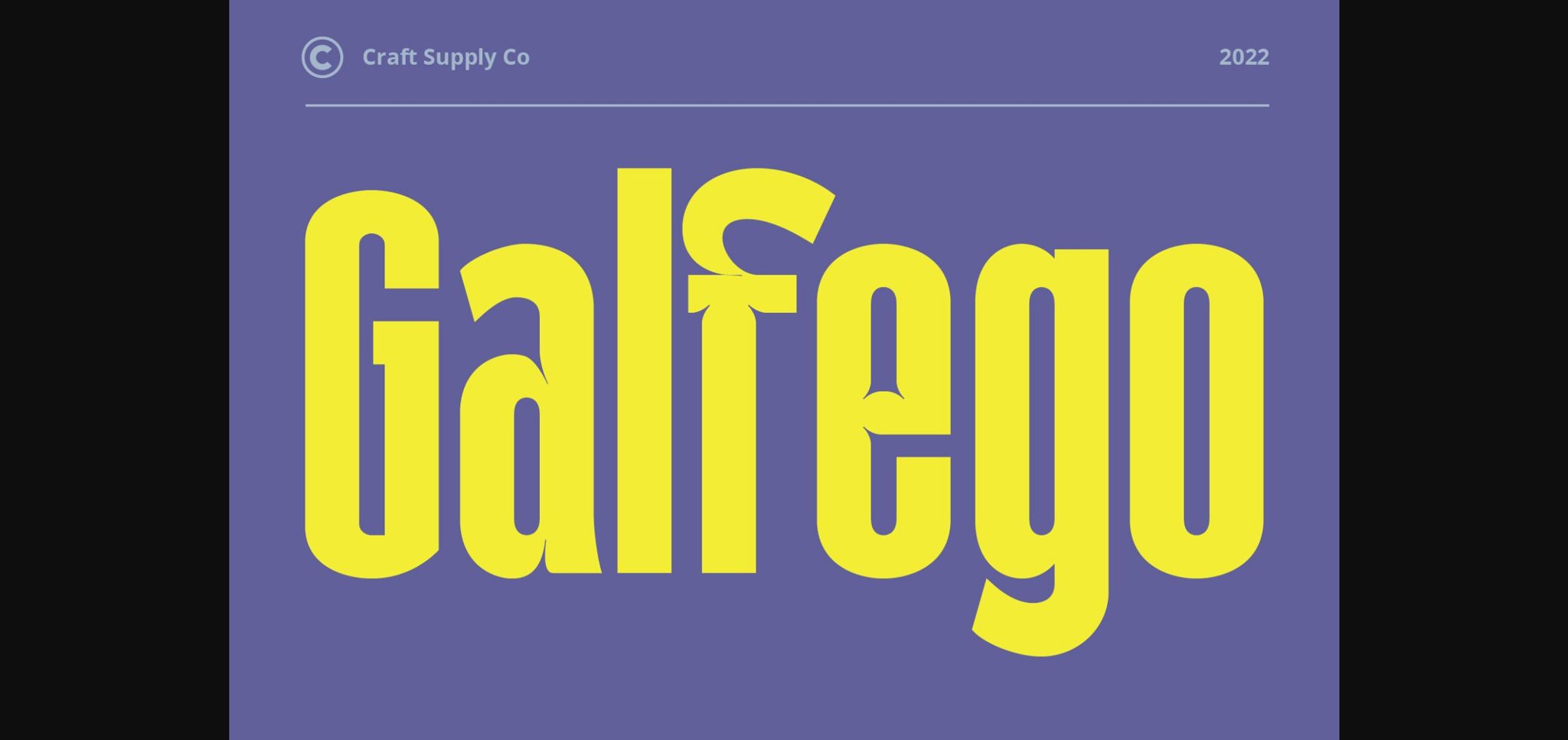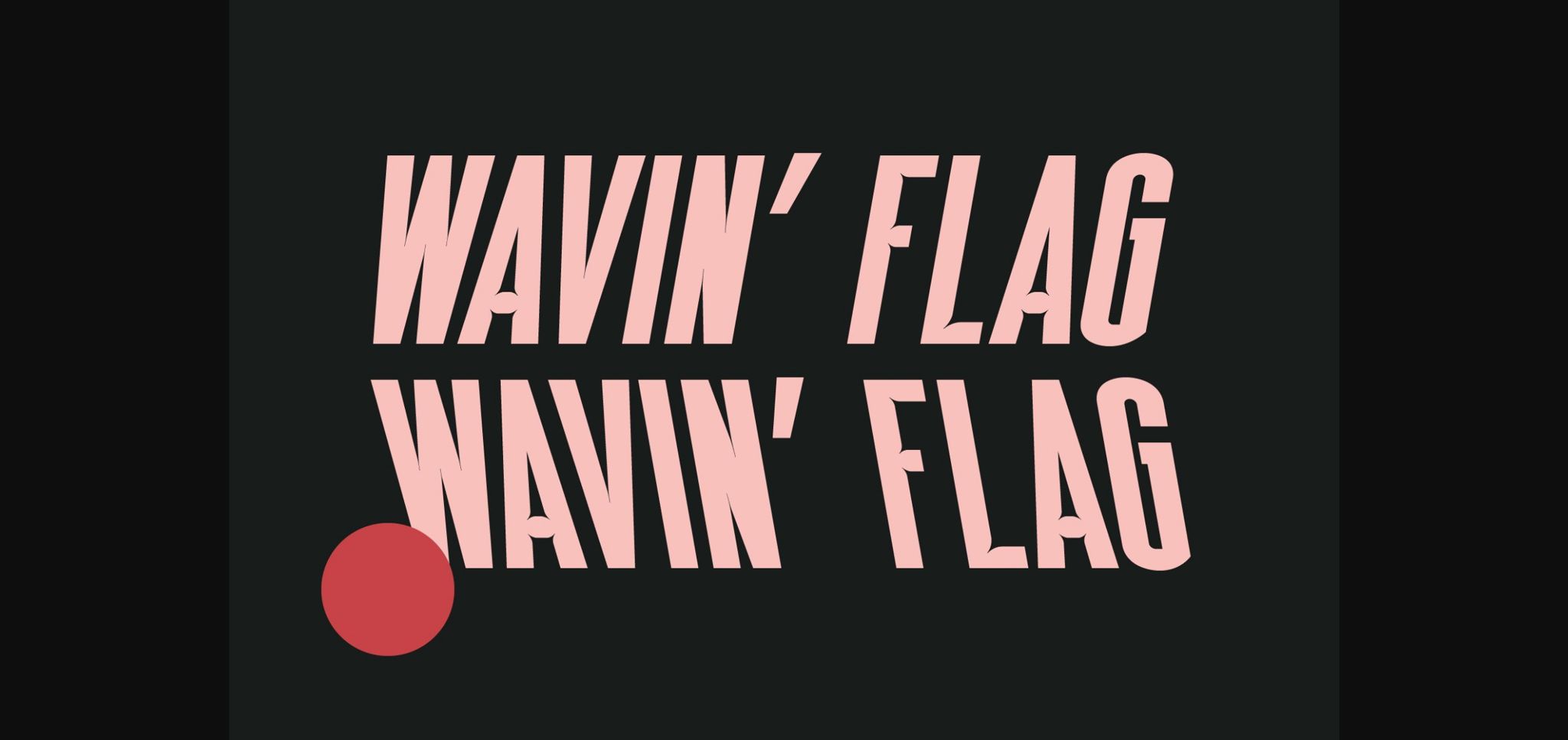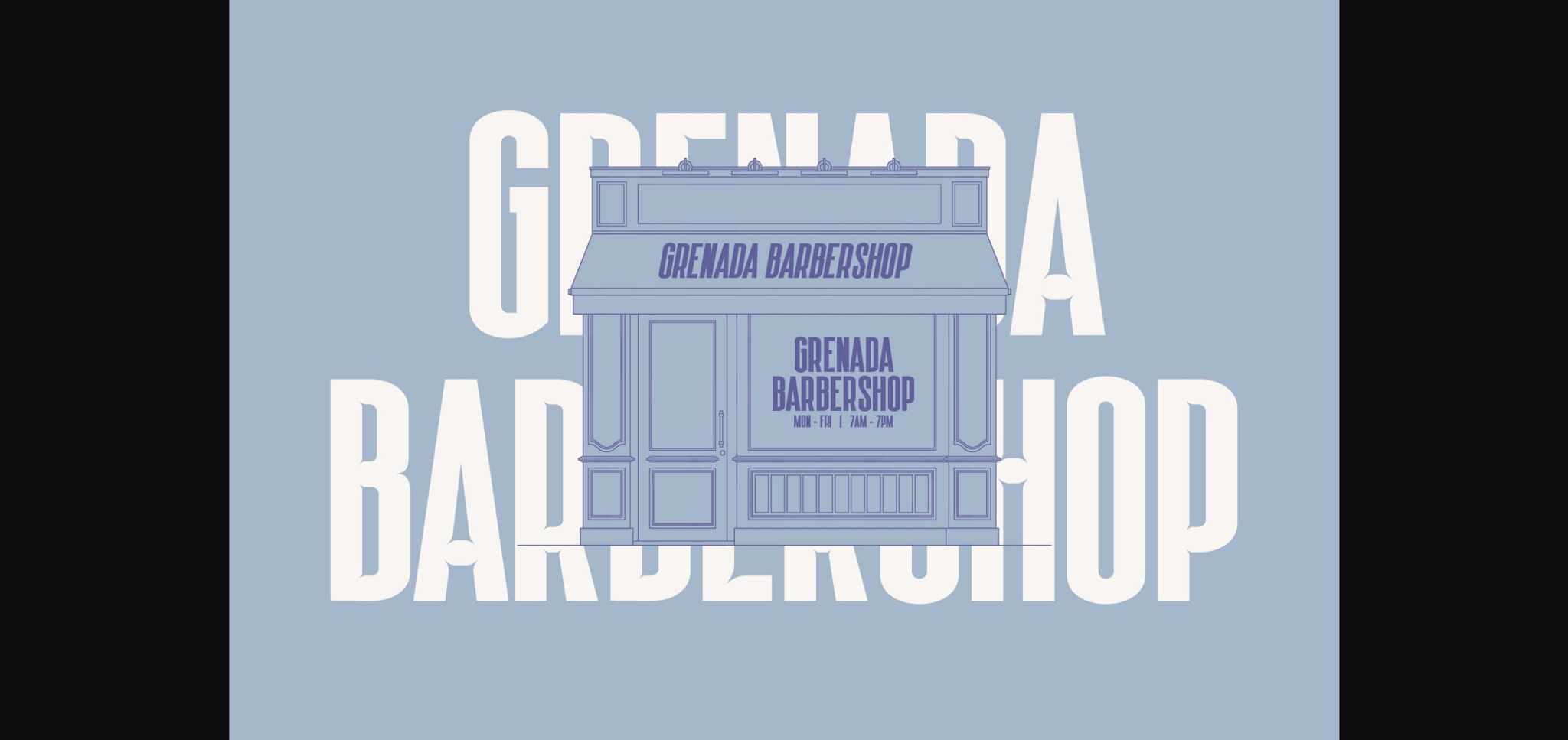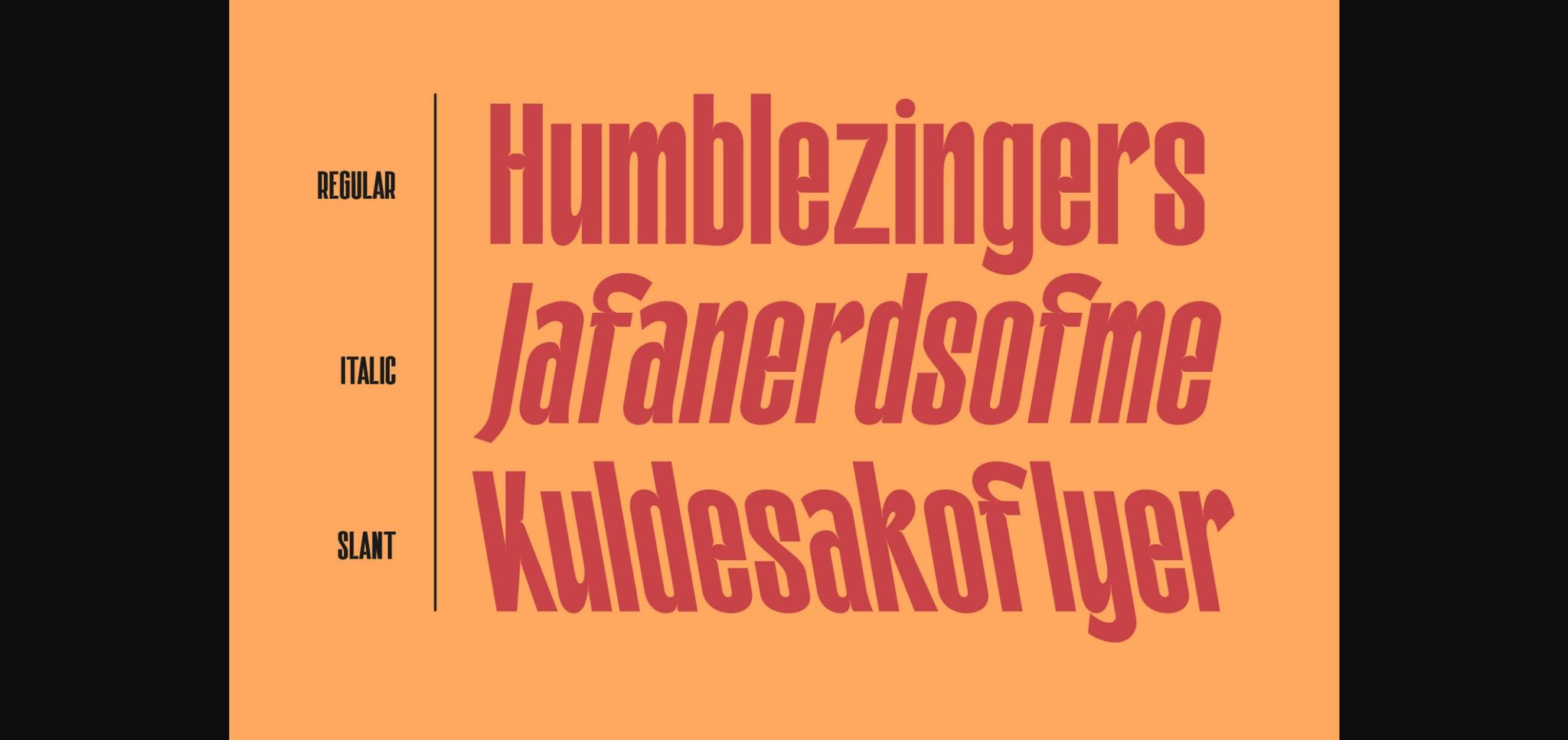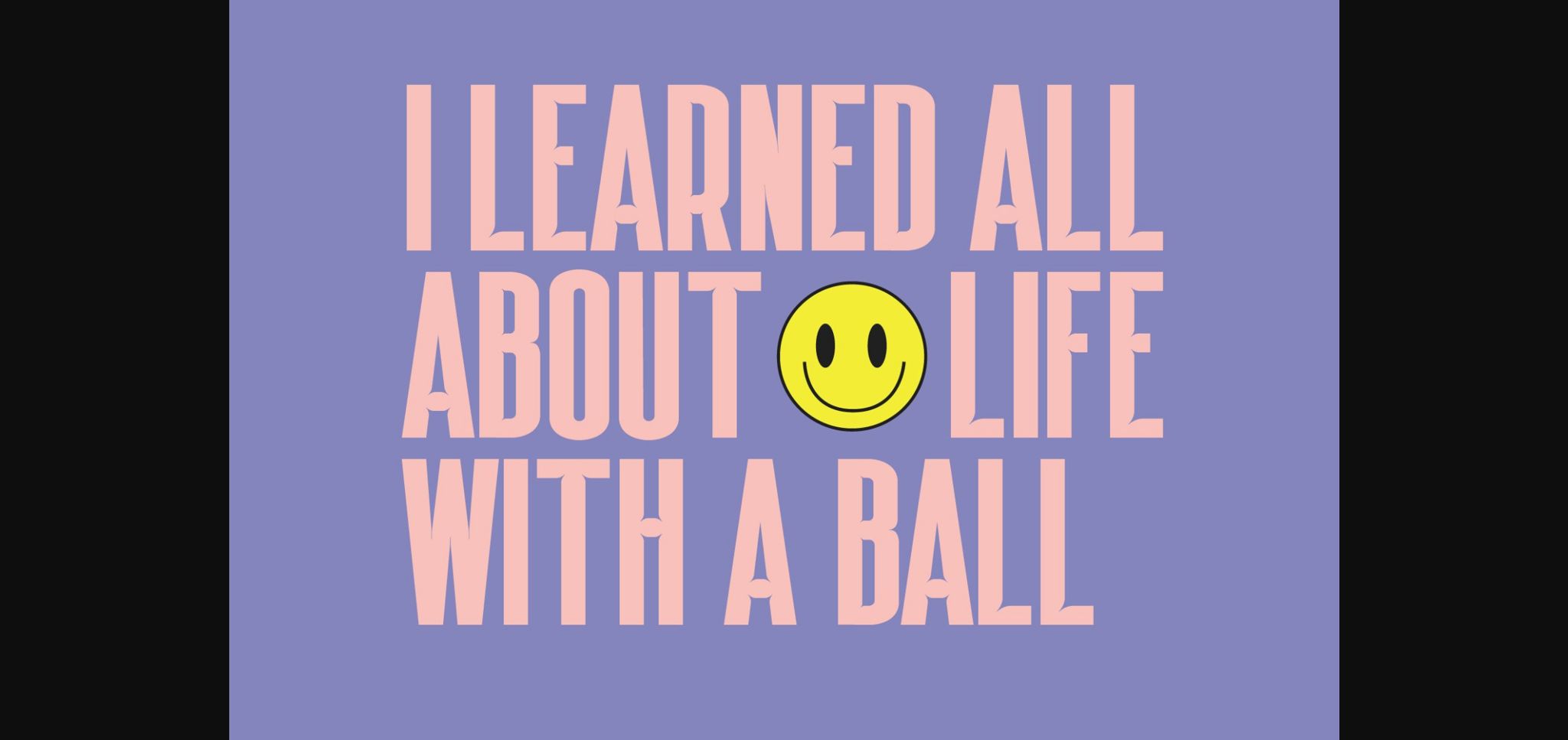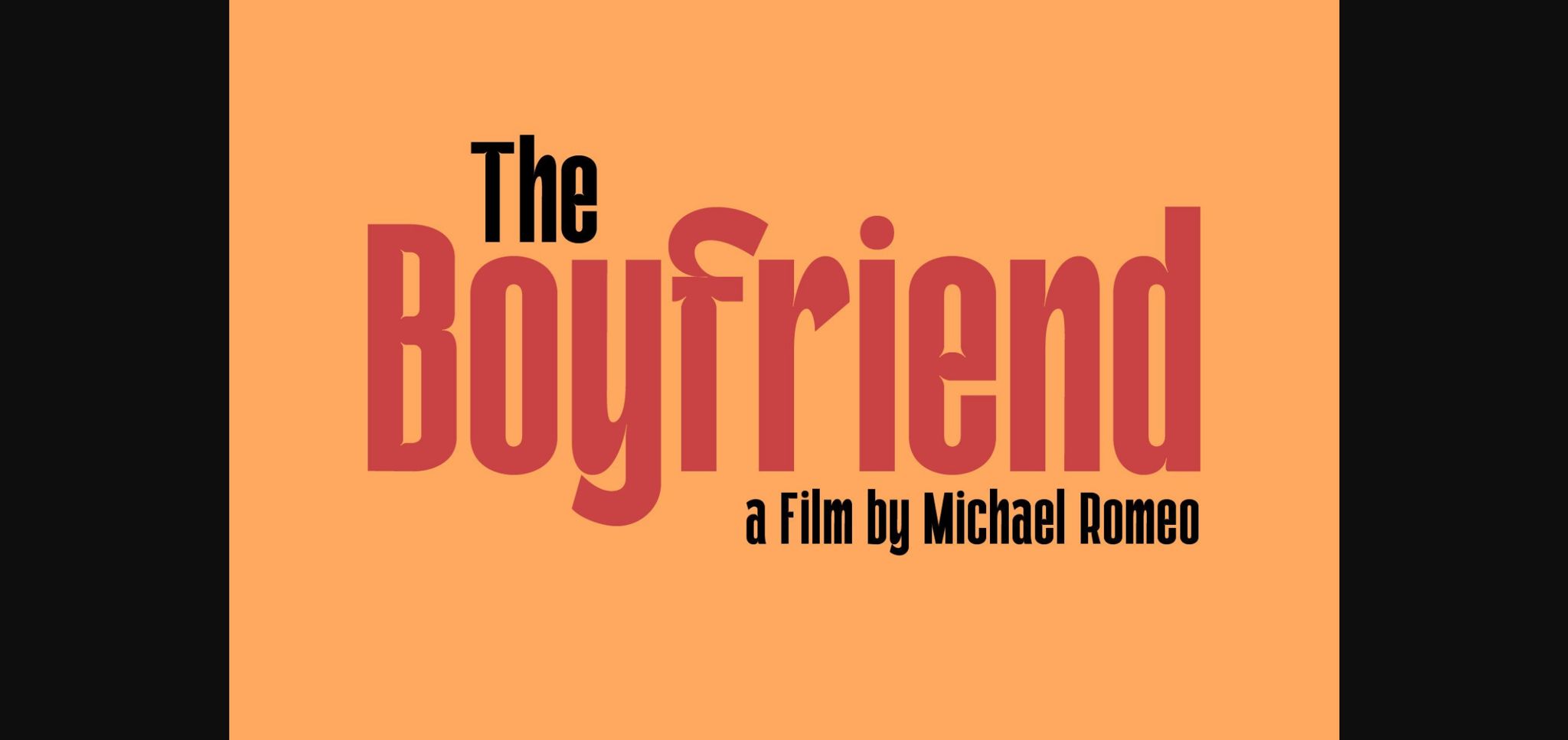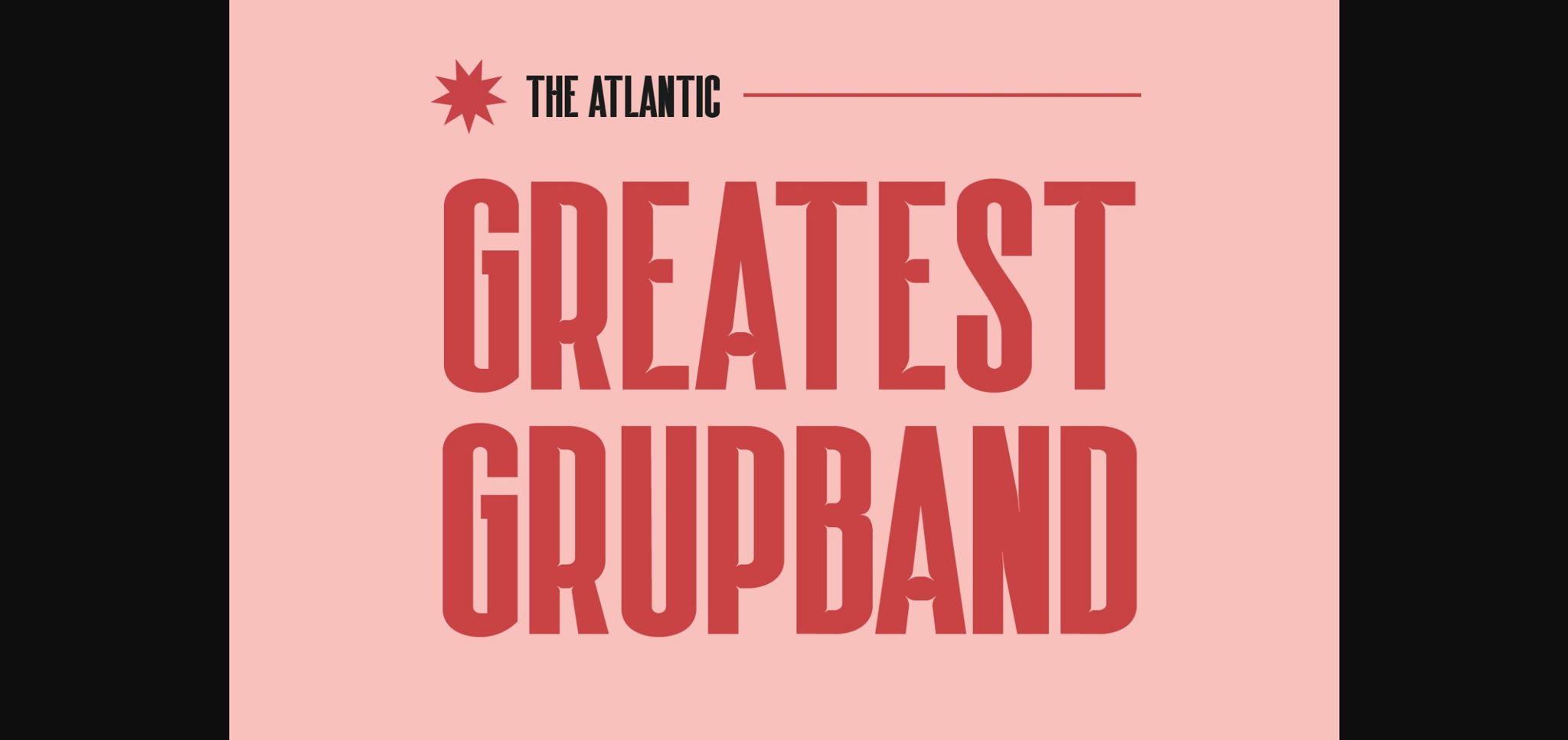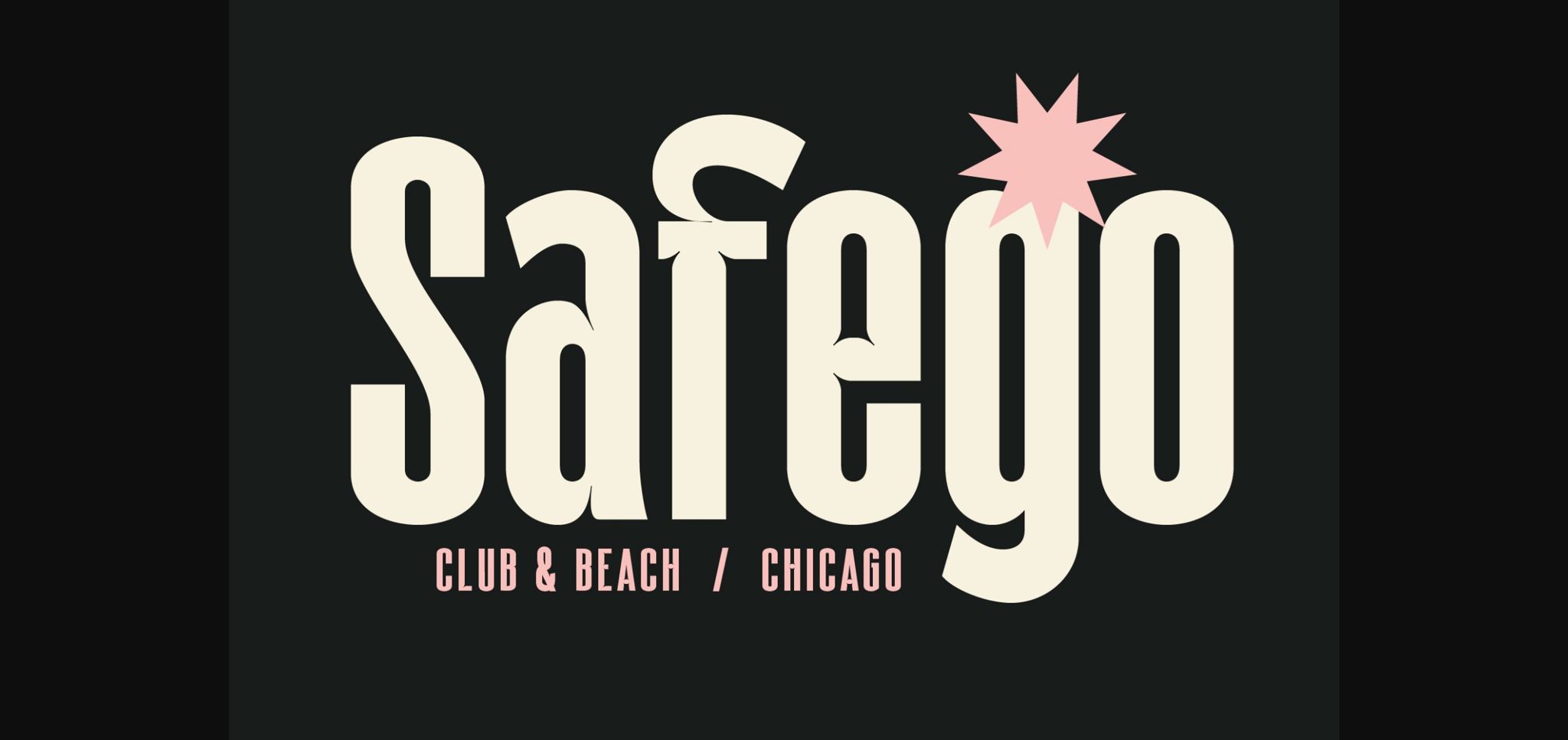
HomeSans Serif FontsGalfego Font Sans Serif Fonts Galfego Font FacebookXPinterestWhatsApp 1 of 11 ... Galfego Font Poster 2... Galfego Font Poster 3... Galfego Font Poster 4... Galfego Font Poster 5... Galfego Font Poster 6... Galfego Font Poster 7... Galfego Font Poster 8... Galfego Font Poster 9... Galfego Font Poster 10... Galfego Font Poster 11... About Galfego Font Galfego is a modern and bold condensed sans serif font featuring the perfect amount of trendiness. Whether you’re using it for crafting, digital designing, presentations, posters, or greeting card making, it’s perfect! DOWNLOAD NOW People also explored Poptis & Heaver Font Wisdom Merry Font Fathyma Font Pink House Font Ranta Vinta Font Byby Font Dealova Font Finis Text Soft Font Bright Font 306 0 TagsGalfegoGalfego Font Previous articlePavia FontNext articleRenygar Font LEAVE A REPLY Cancel reply Comment: Please enter your comment! Name:* Please enter your name here Email:* You have entered an incorrect email address! Please enter your email address here Website: Save my name, email, and website in this browser for the next time I comment. Personal Use Free Miss Love Personal Use Free Read more about this font Calling Personal Use Free Read more about this font Rumaniaya Personal Use Free Read more about this font Abuget Free Script Personal Use Free Read more about this font BLOG Fonts That Capture the Spirit of New York City New York City is more than just a place—it’s an experience, a rhythm, a visual language... To increase your work productivity, choose the most readable fonts. Free vs Paid Fonts: Why Investing in Premium Fonts Is Worth It The 10 Best Handwriting Fonts to Add Personality to Your Designs